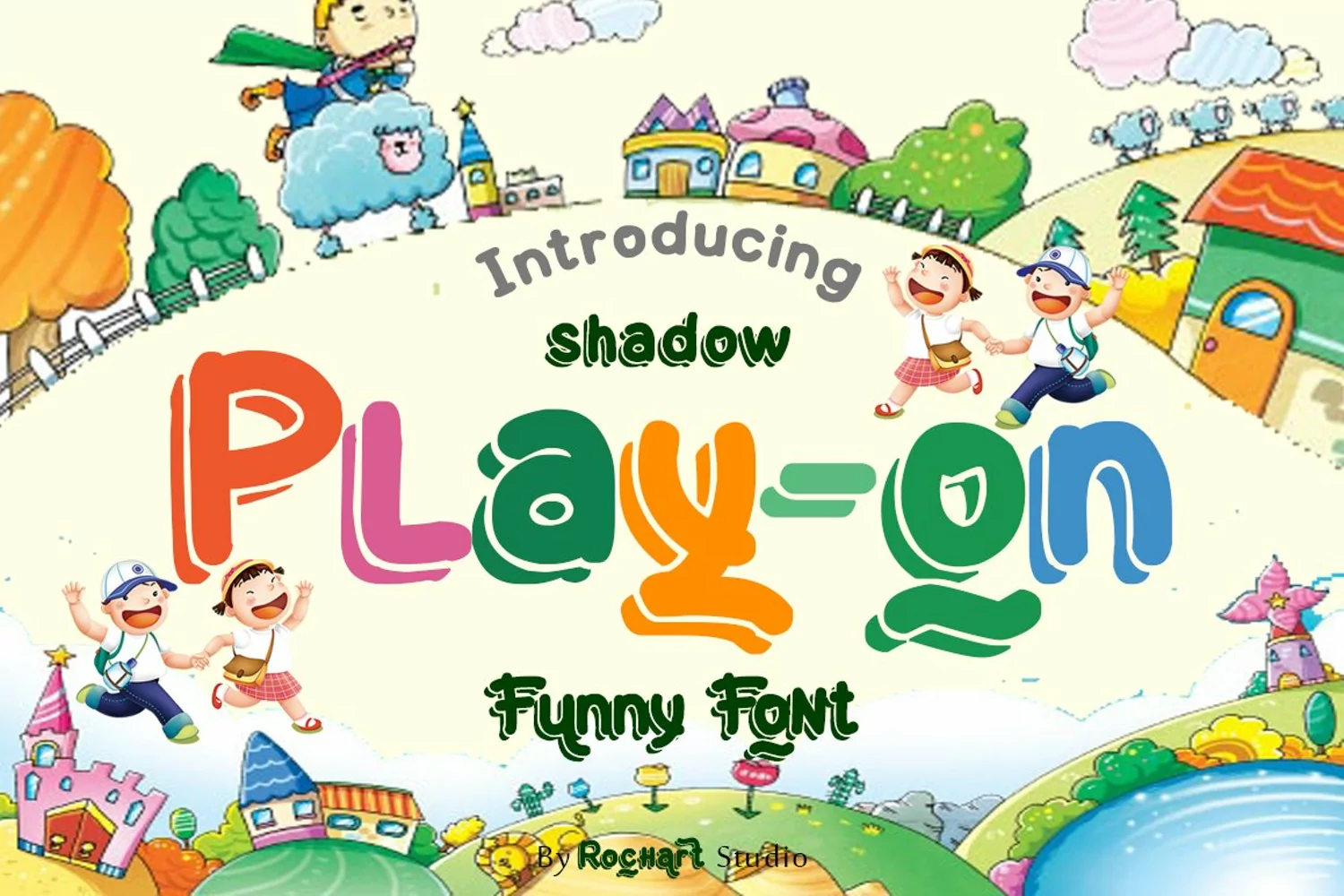
Play-On Shadow Font
This striking typeface is perfect for logos, posters, merchandise, and digital banners, delivering a bold and dramatic shadow effect.
Play-on Shadow Font excites designers with its dynamic 3D appearance, creating depth and visual impact for attention-grabbing designs.
The Play-on Shadow Font family includes Regular, Shadow, Bold, and Italic variants, offering versatile styling options.
Looking for a typeface that makes your designs pop? Play-on Shadow Font Free Download is your go-to choice for bold, eye-catching typography. With its distinctive shadow effect, this font adds depth and dimension, making it ideal for projects that demand a strong visual presence. From branding to promotional materials, Play-on Shadow Font ensures your work stands out.
This font shines in applications like logo design, where its shadow effect creates a memorable, professional look. It’s also a favorite for posters and merchandise, such as t-shirts and mugs, where its bold style enhances visual appeal. Web designers use Play-on Shadow Font for headers and banners, leveraging its dramatic flair to captivate online audiences.
The excitement of Play-on Shadow Font lies in its ability to transform flat designs into dynamic, three-dimensional visuals. Its bold, shadowed aesthetic is perfect for industries like entertainment, gaming, and streetwear branding, where standing out is key. The font’s clean lines paired with its shadow effect strike a balance between modern and artistic, ensuring versatility across projects.
The Play-on Shadow Font family provides a range of styling options. The Regular variant offers a solid foundation, while the Shadow style adds depth for headlines and logos. The Bold variant amplifies impact, and the Italic version brings a stylish slant for creative accents. This flexibility makes it easy to mix and match for unique designs.